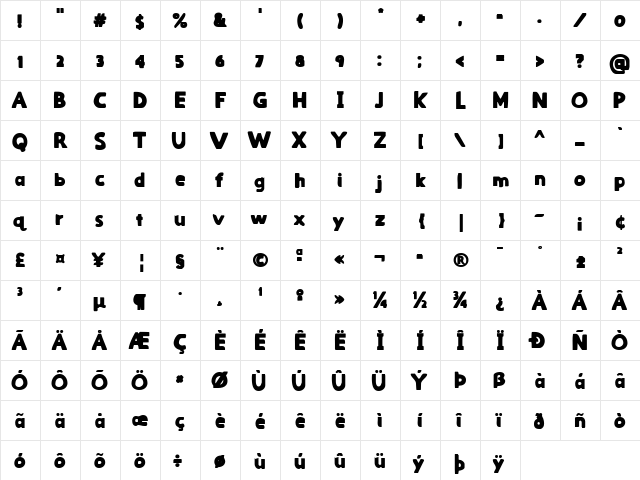
Sea Horses Regular
| Designer | Ali Hamidi |
Design Context for Sea Horses Typeface
Sea Horses is a composed and adaptable typeface that performs quietly and consistently across a wide range of design contexts.